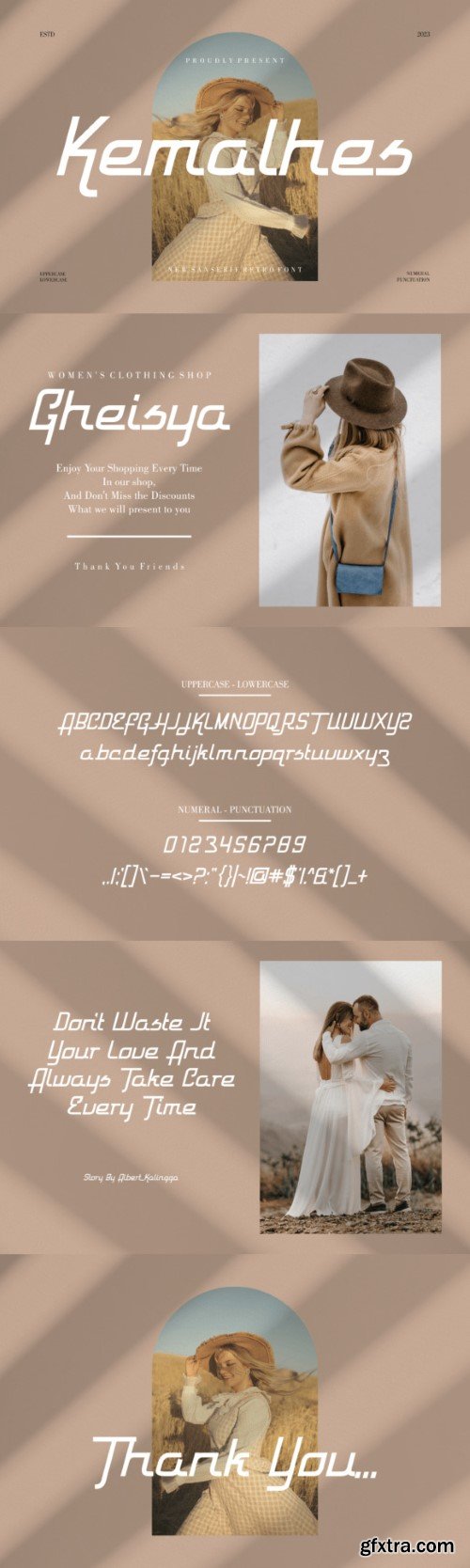
凯马赫斯字体
Kemalhes is a cool and unique display font that radiates modernity with an edge. Its distinctive letterforms blend sharp angles and sleek curves, creating an avant-garde aesthetic. Ideal for projects seeking a bold and contemporary vibe, Kemalhes adds a distinct and impactful flair to your designs.